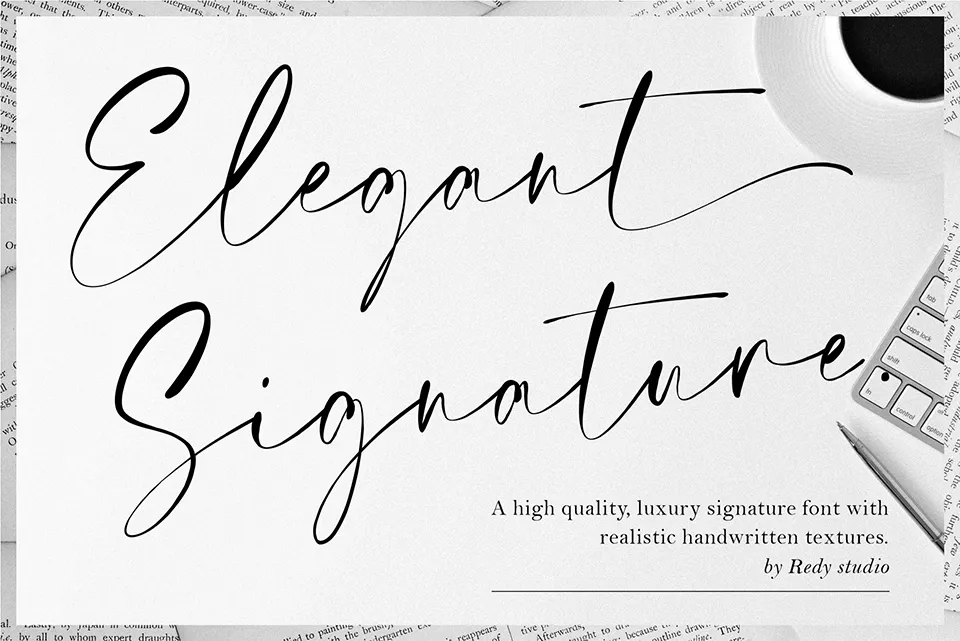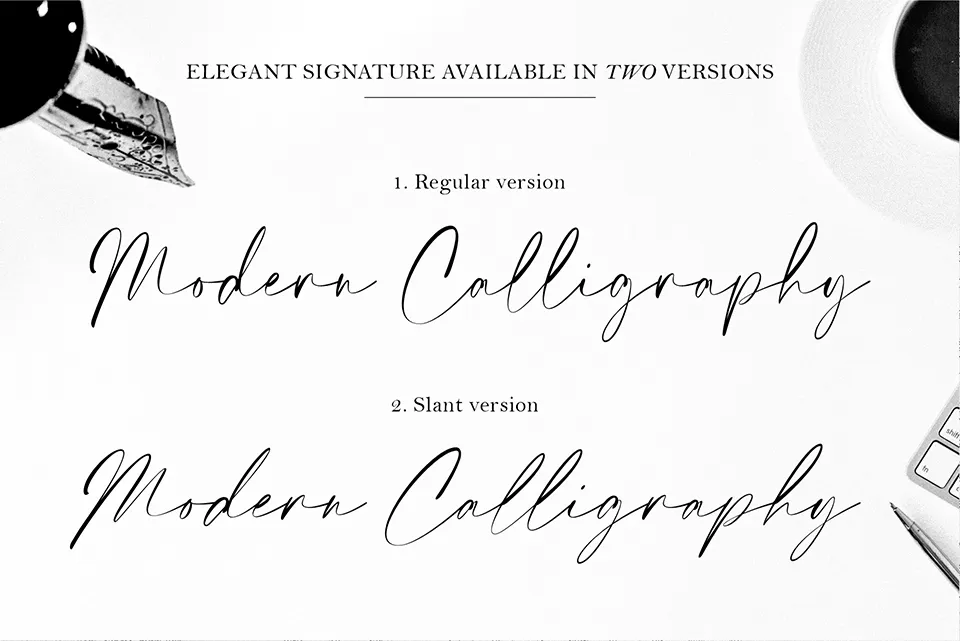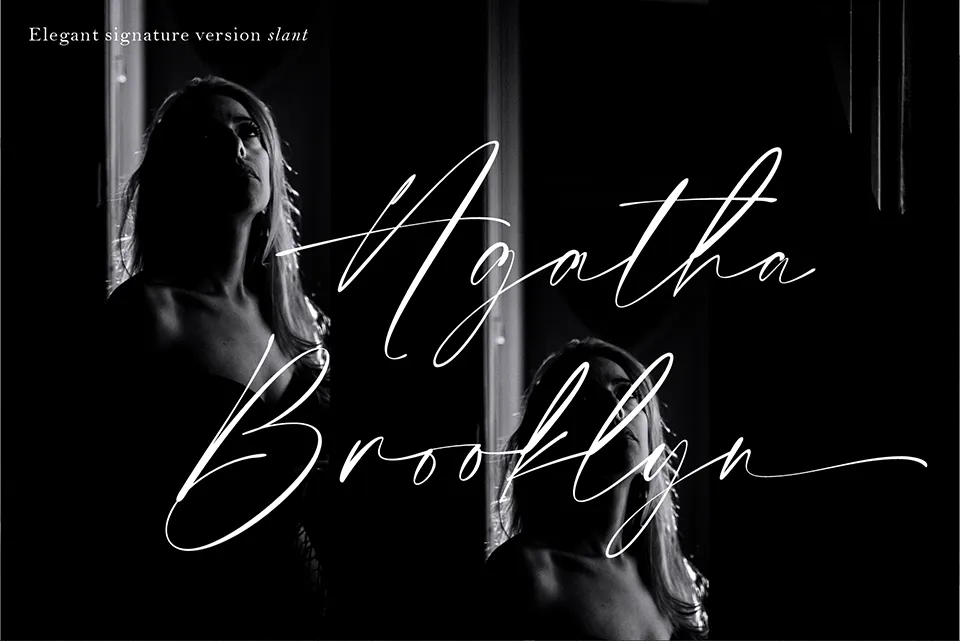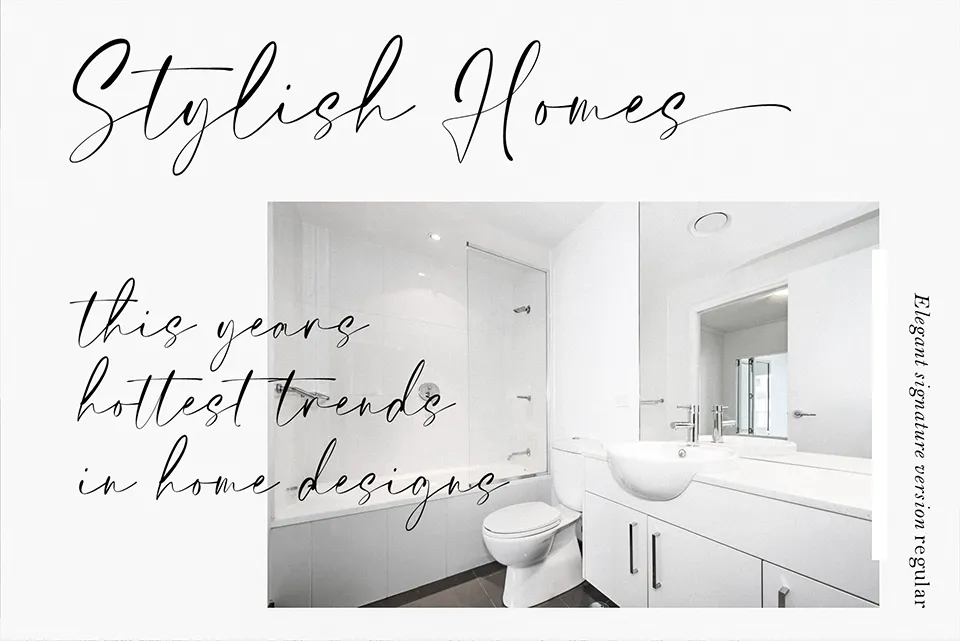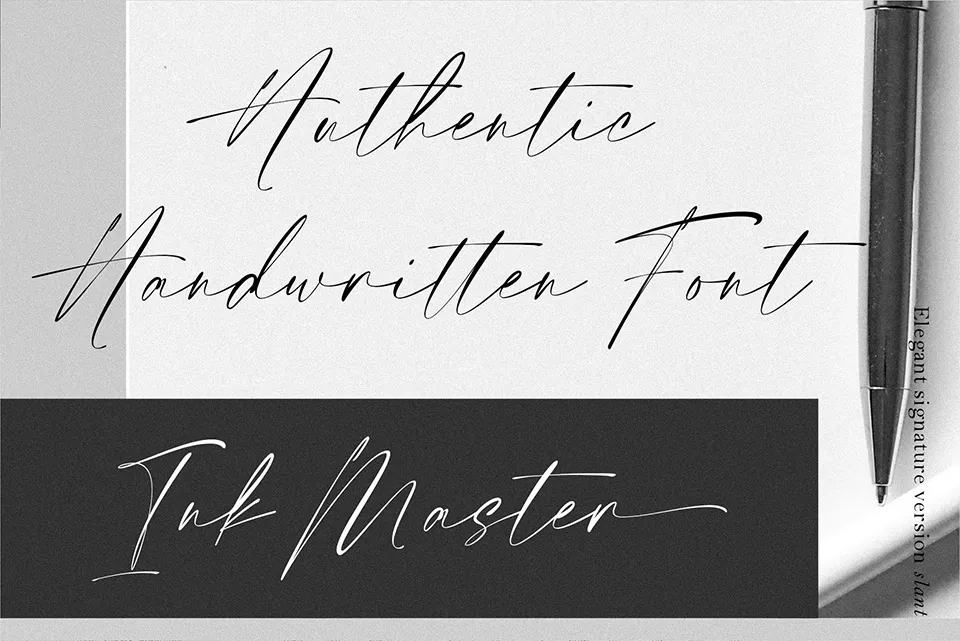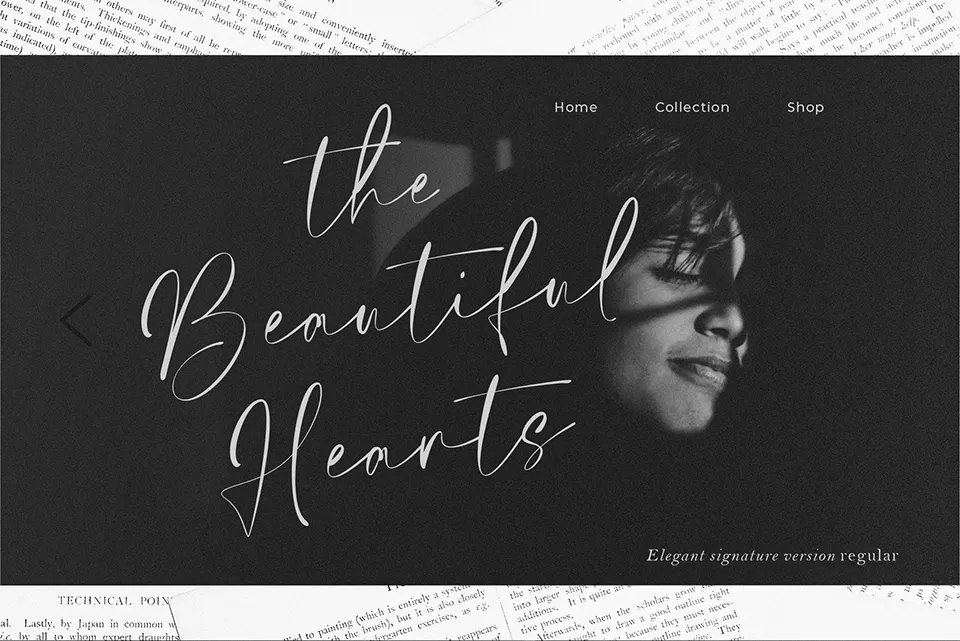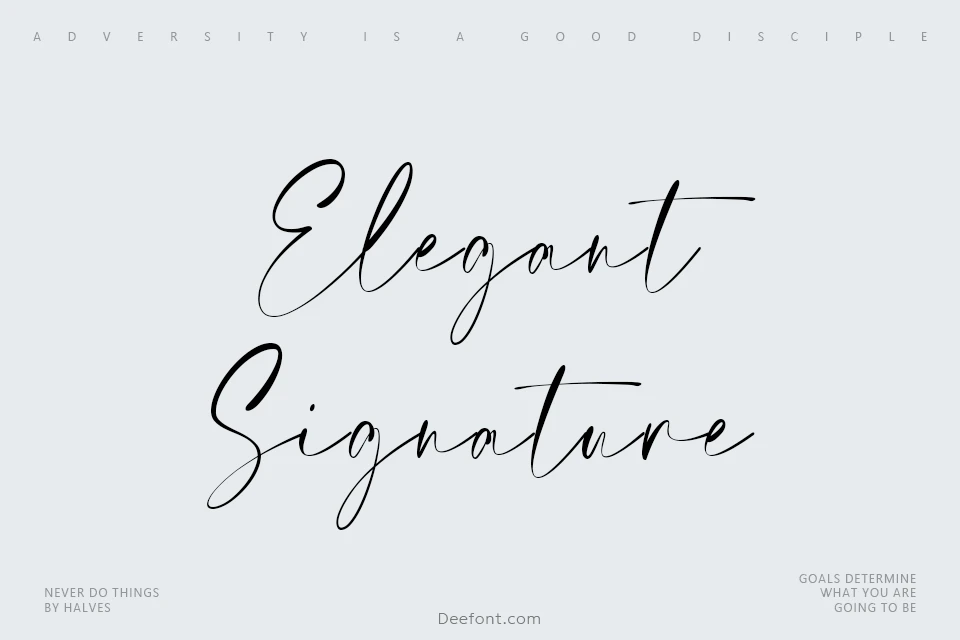
Elegant Signature Font
Elegant Signature Font is a high-quality, luxury signature font with realistic handwritten textures. Designed to bring elegance, style, and a chic handwritten touch to your creative projects, it features handmade clean edges, a full set of upper and lowercase characters, numbers, punctuation, gorgeous ligatures, alternate characters, and multilingual support. Perfect for logos, magazine designs, sticker labels, and paperwork, this font will make your designs stand out with its authentic handwritten look.